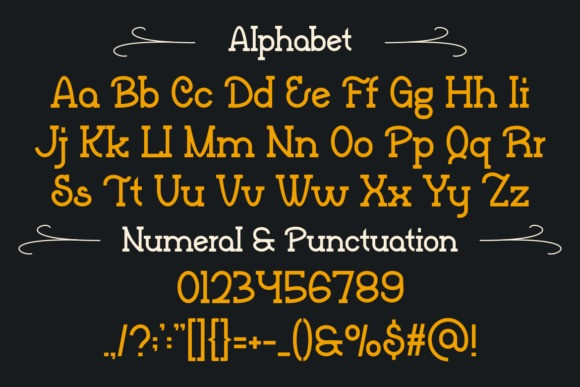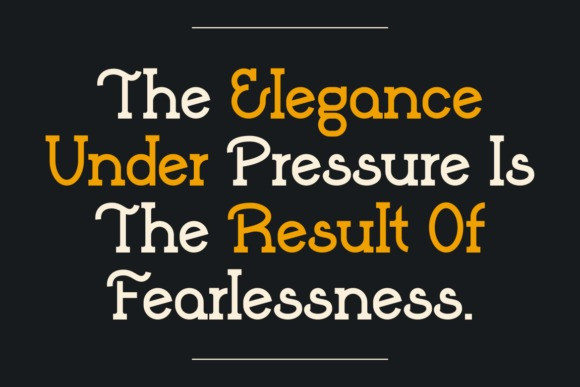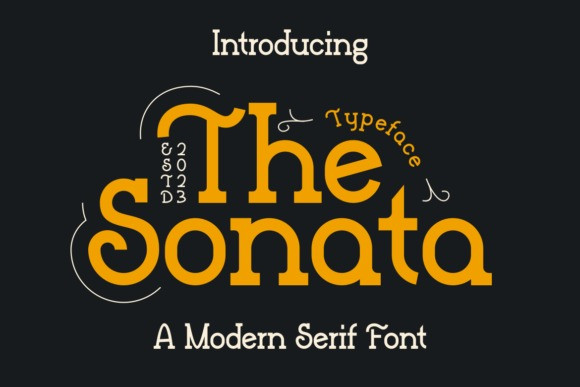
Sonata Font
Sonata Font is a unique serif font combing both modern and vintage design elements. Fall in love with its original style and bring your projects to the highest levels!